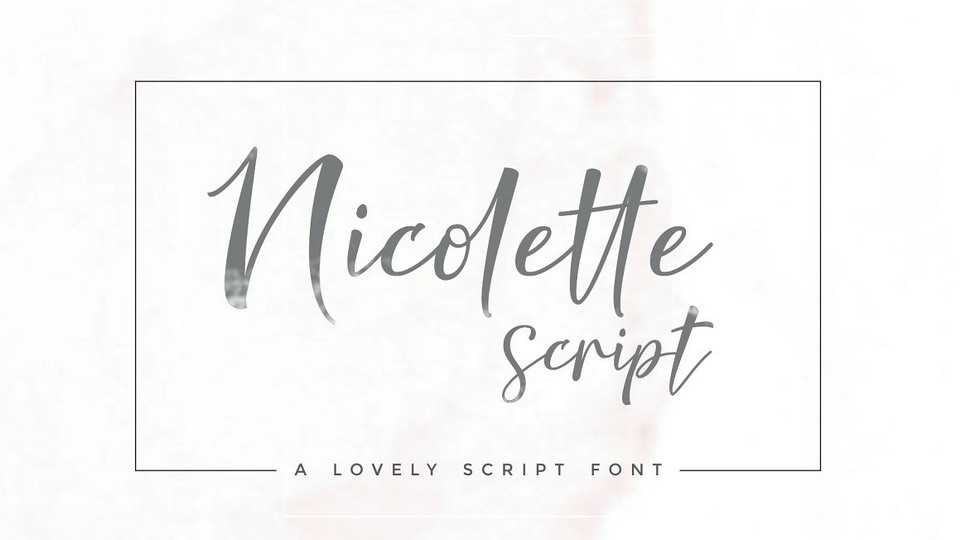
Download Nicolette font, a stunning handwritten script that is given a modern touch and front and back swashes. It’s suitable for branding, logos, greetings, weddings and more.
Designer: Cooldesignlab